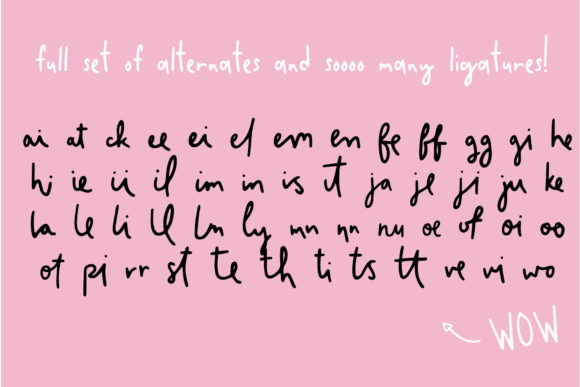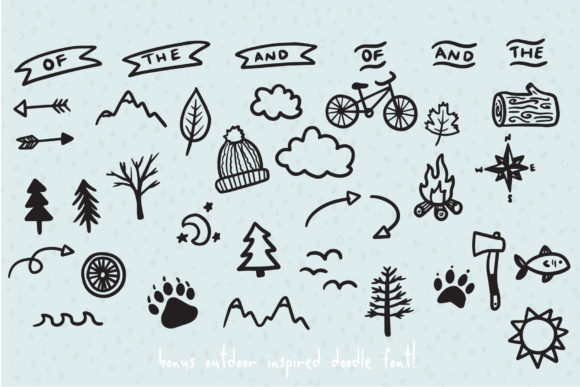
Taconic Font
db-ku.com - Script & Handwritten -- Taconic is a quirky handwritten font with a playful feel. It was inspired by a hiking trip by the Taconic mountain range.